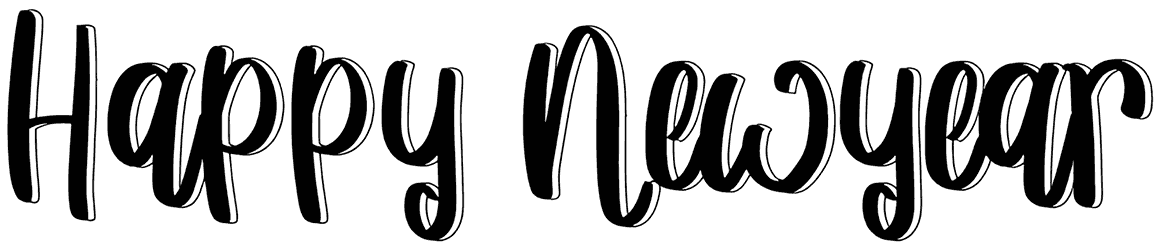
Happy Newyear Font
A script font like Happy Newyear can add a personalized handwritten touch to your graphic content, including branding, editorial projects, business cards, logos, or gift cards. Due to its cursive style of characters, it…
A script font like Happy Newyear can add a personalized handwritten touch to your graphic content, including branding, editorial projects, business cards, logos, or gift cards.
Due to its cursive style of characters, it can bring a feeling of professionalism, jauntiness, drama, or sincerity to your work. Just in case you require another font the same as this one, don’t hesitate to visit our rich archive.